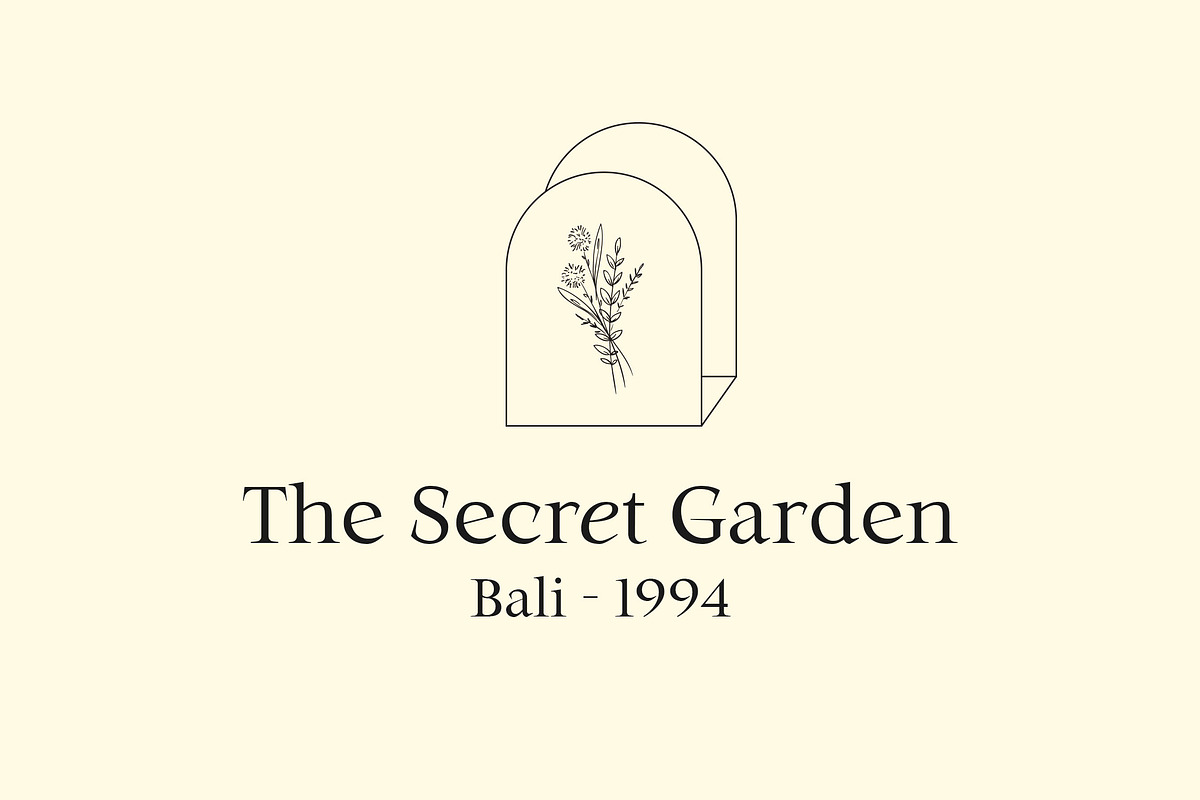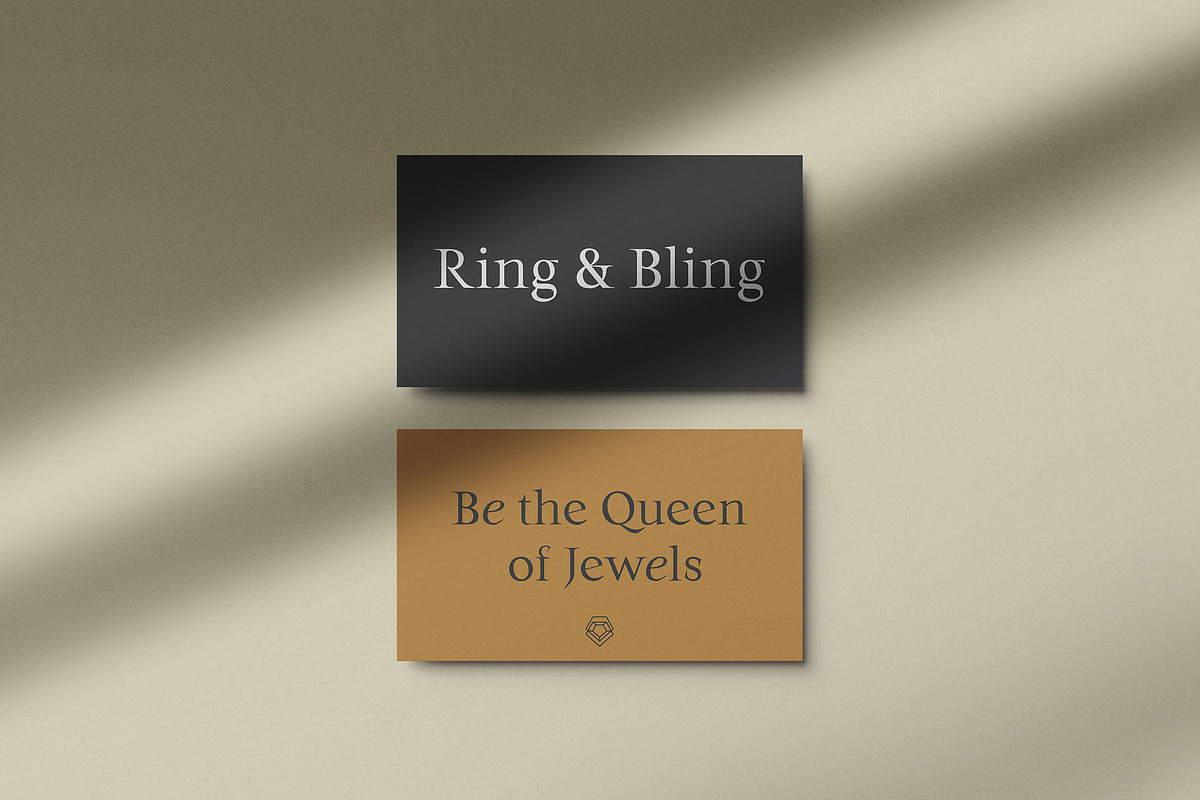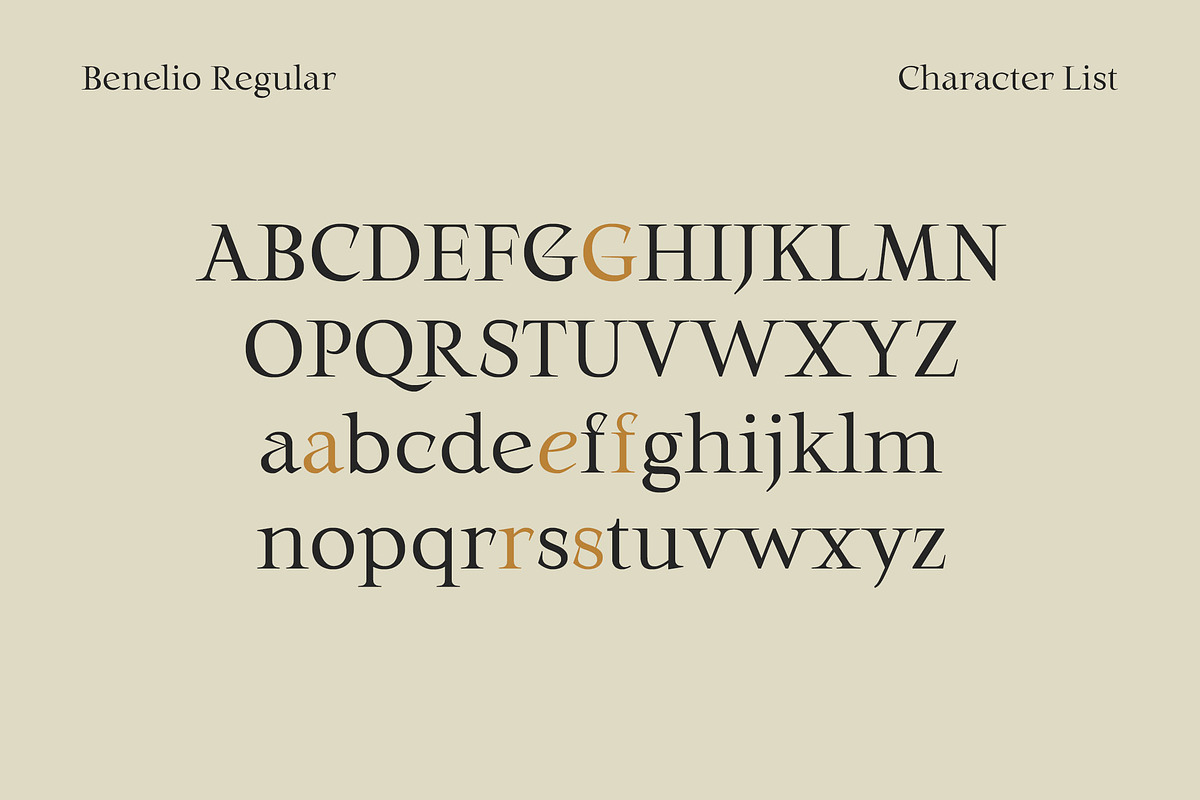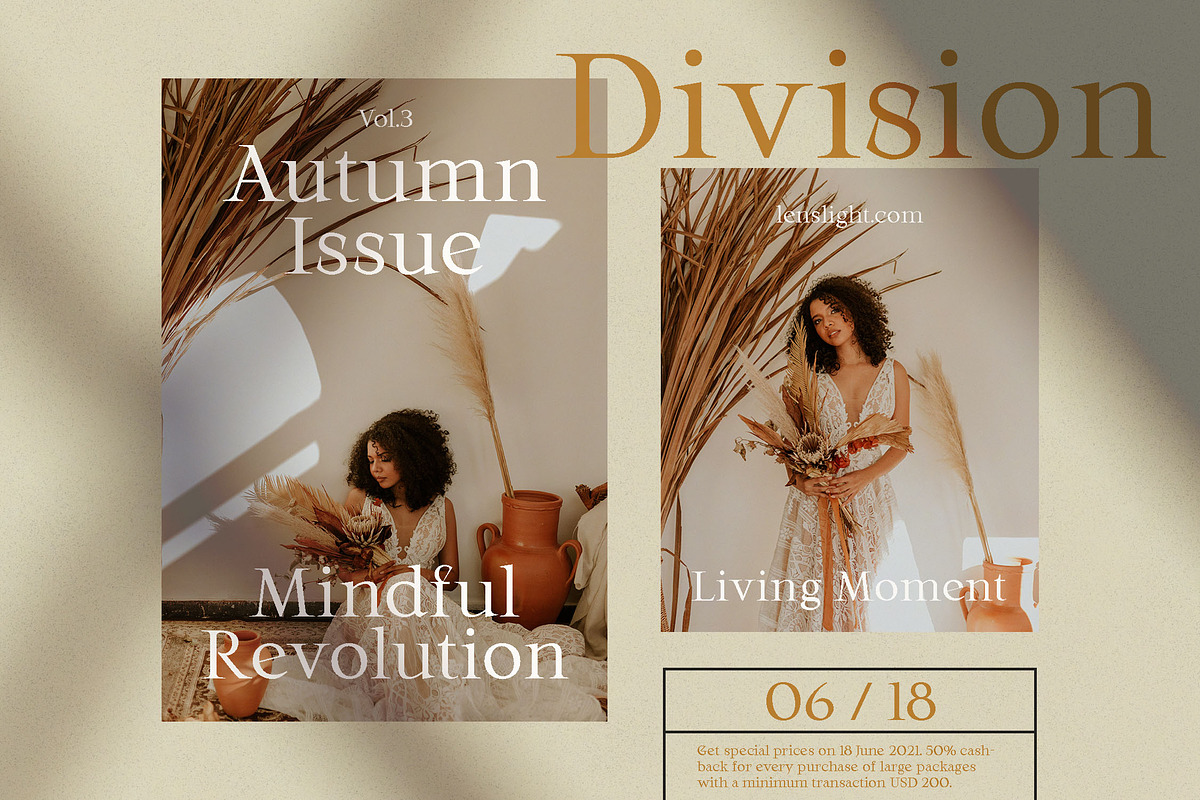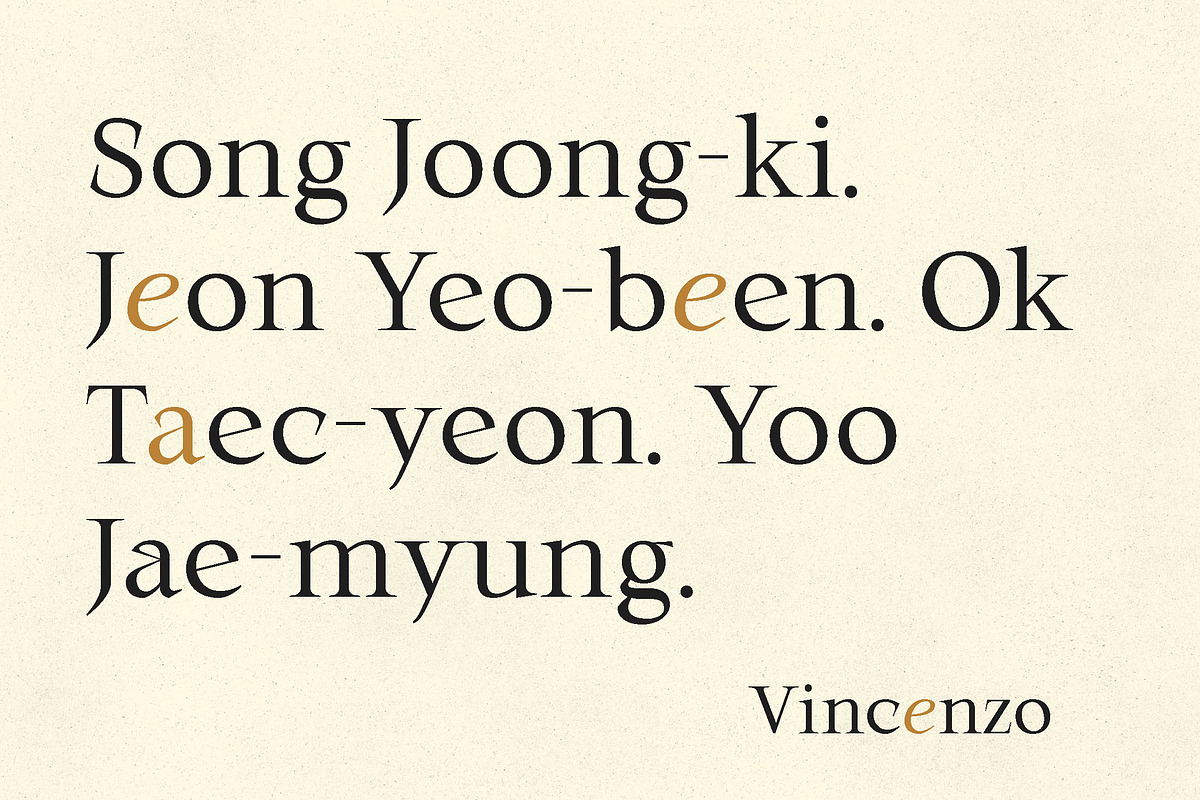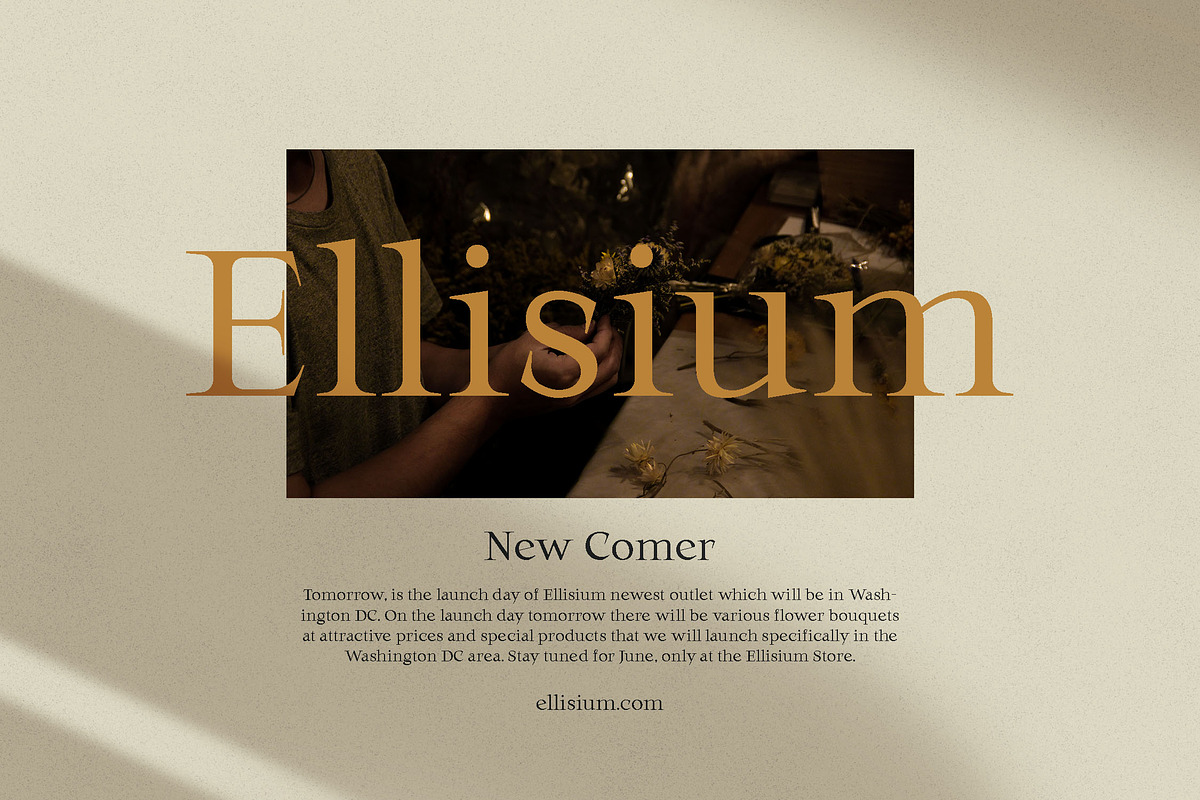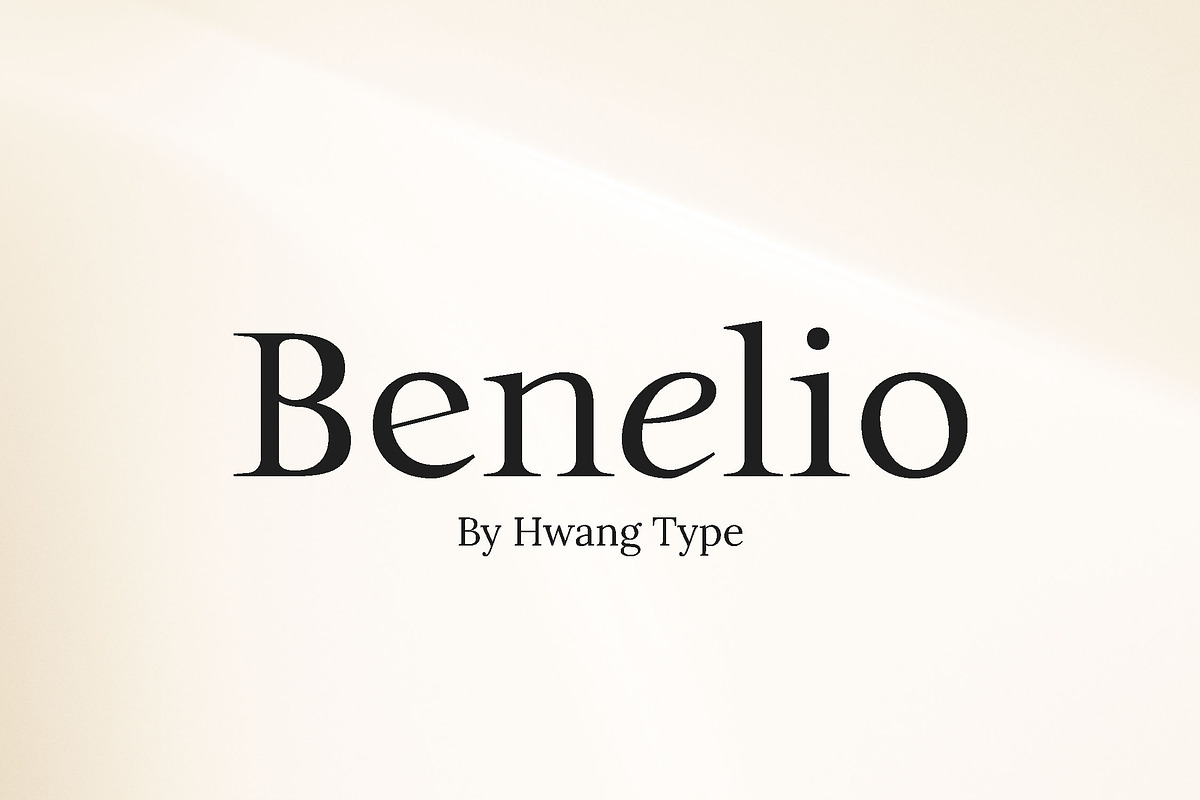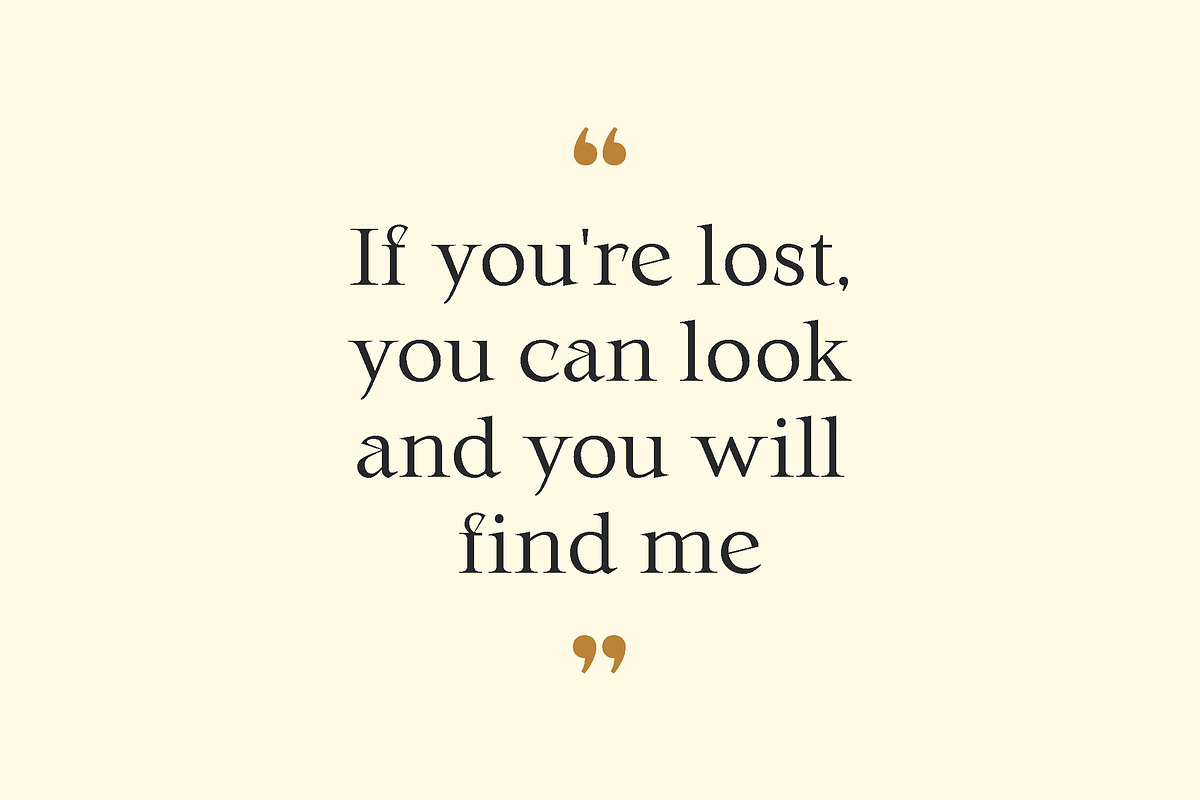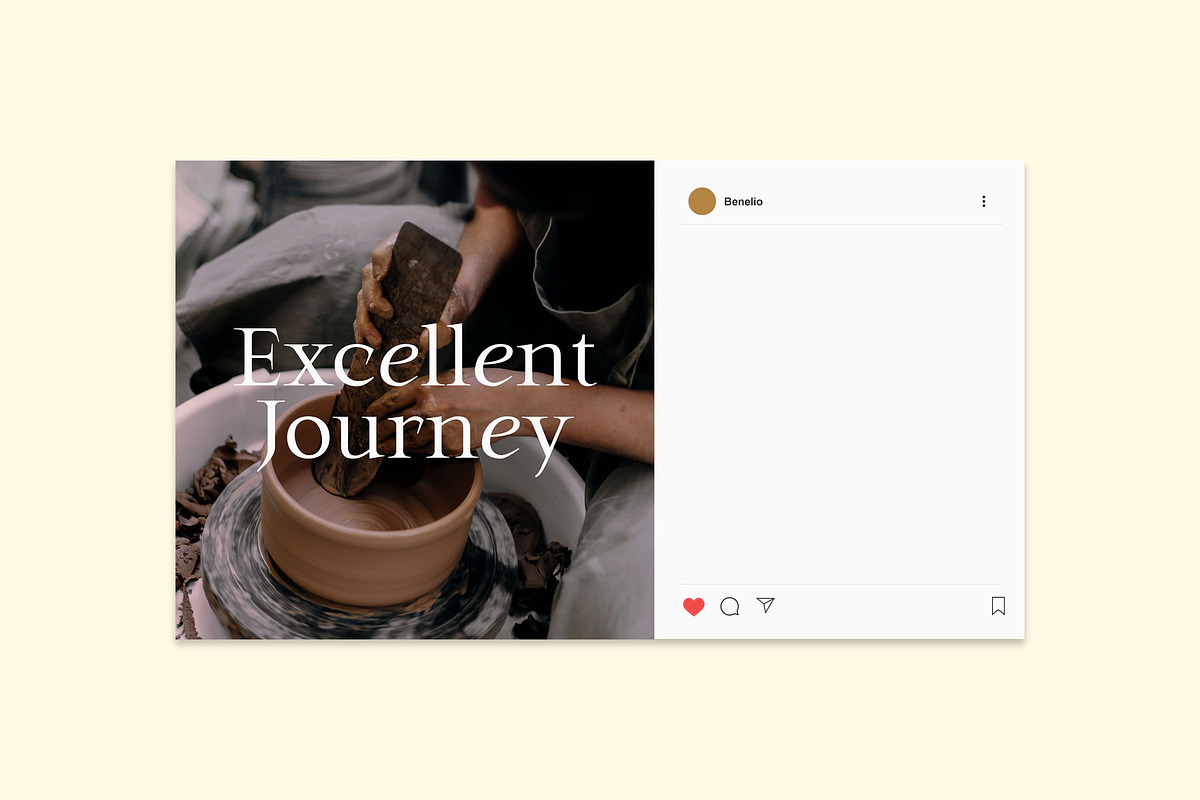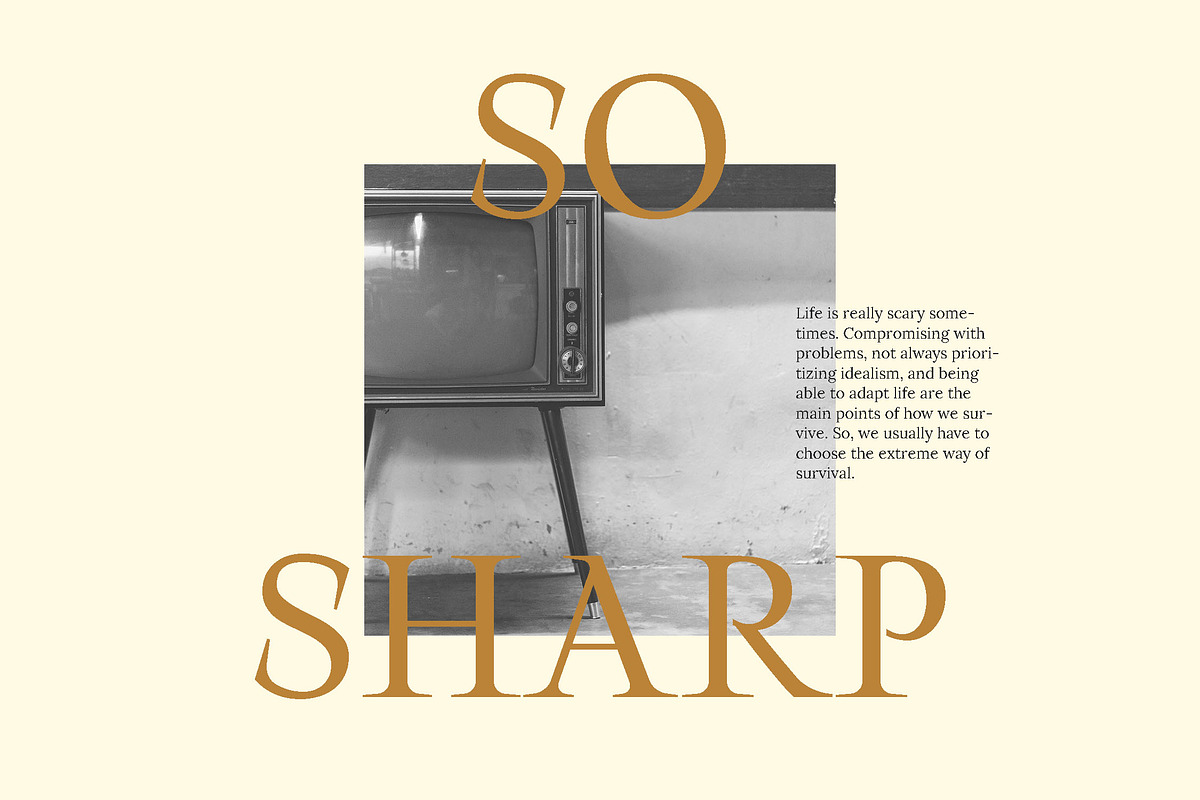
Benelio - Sharp Serif
Benelio - Sharp Serif Font
Benelio is a font specially designed with special attention to the serif used. Benelio is designed with an elegant, clean and classy mood which is suitable for products such as logos, branding, editorials, magazines, posters, beauty products, photography and many more.
Play with Benelio, because there will be other surprises for some of the type you choose. Make your scenario with Benalio